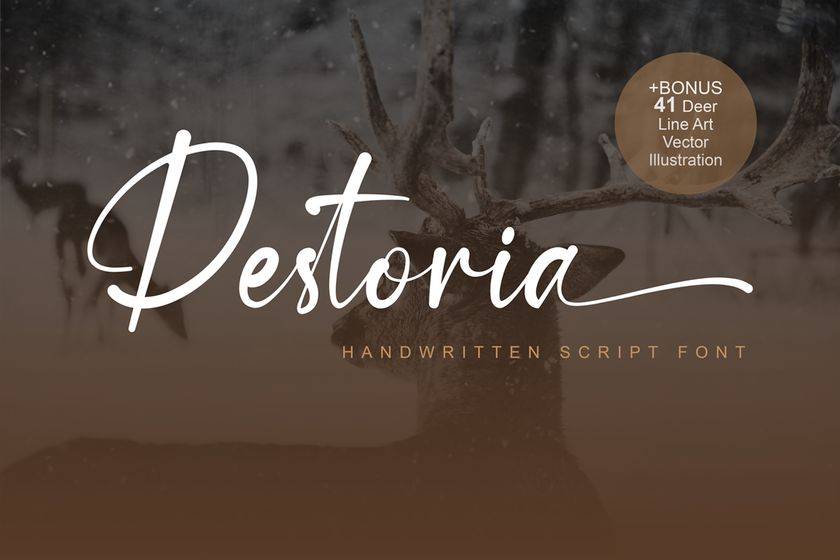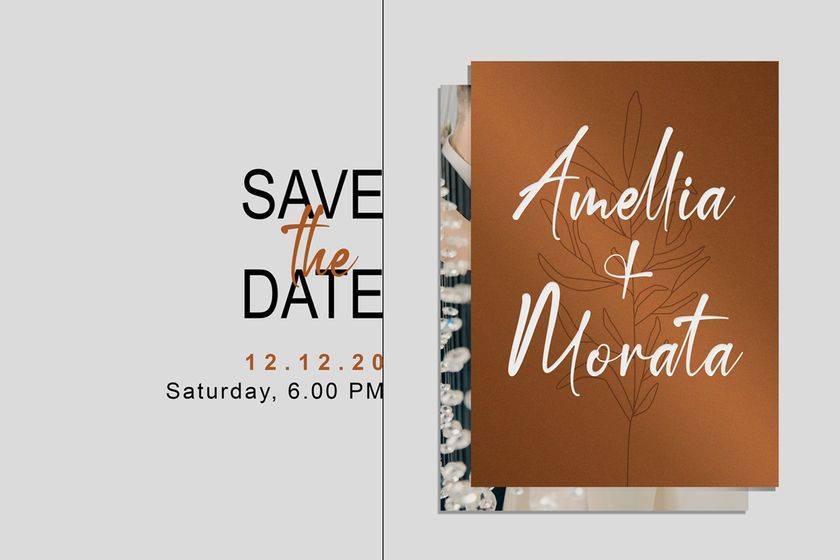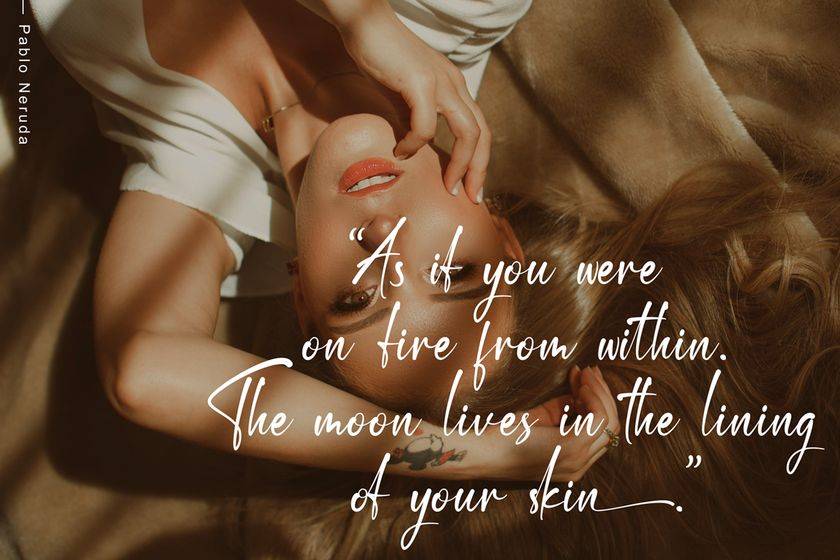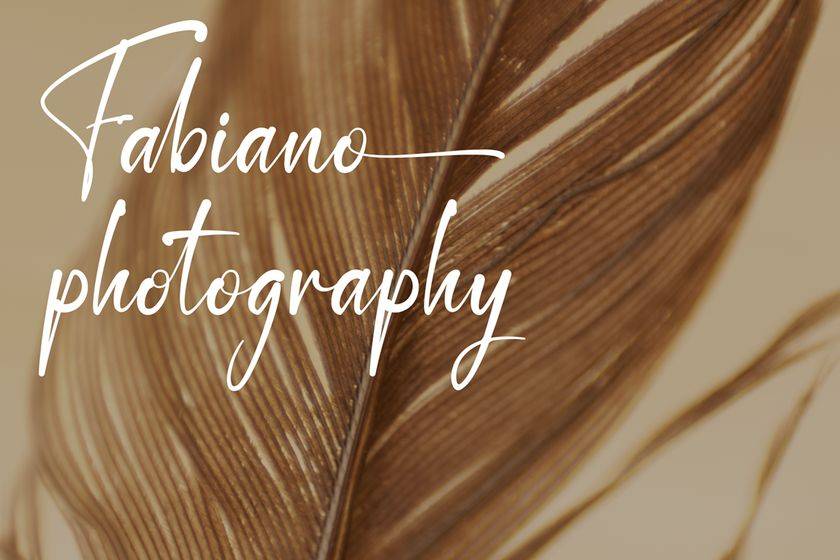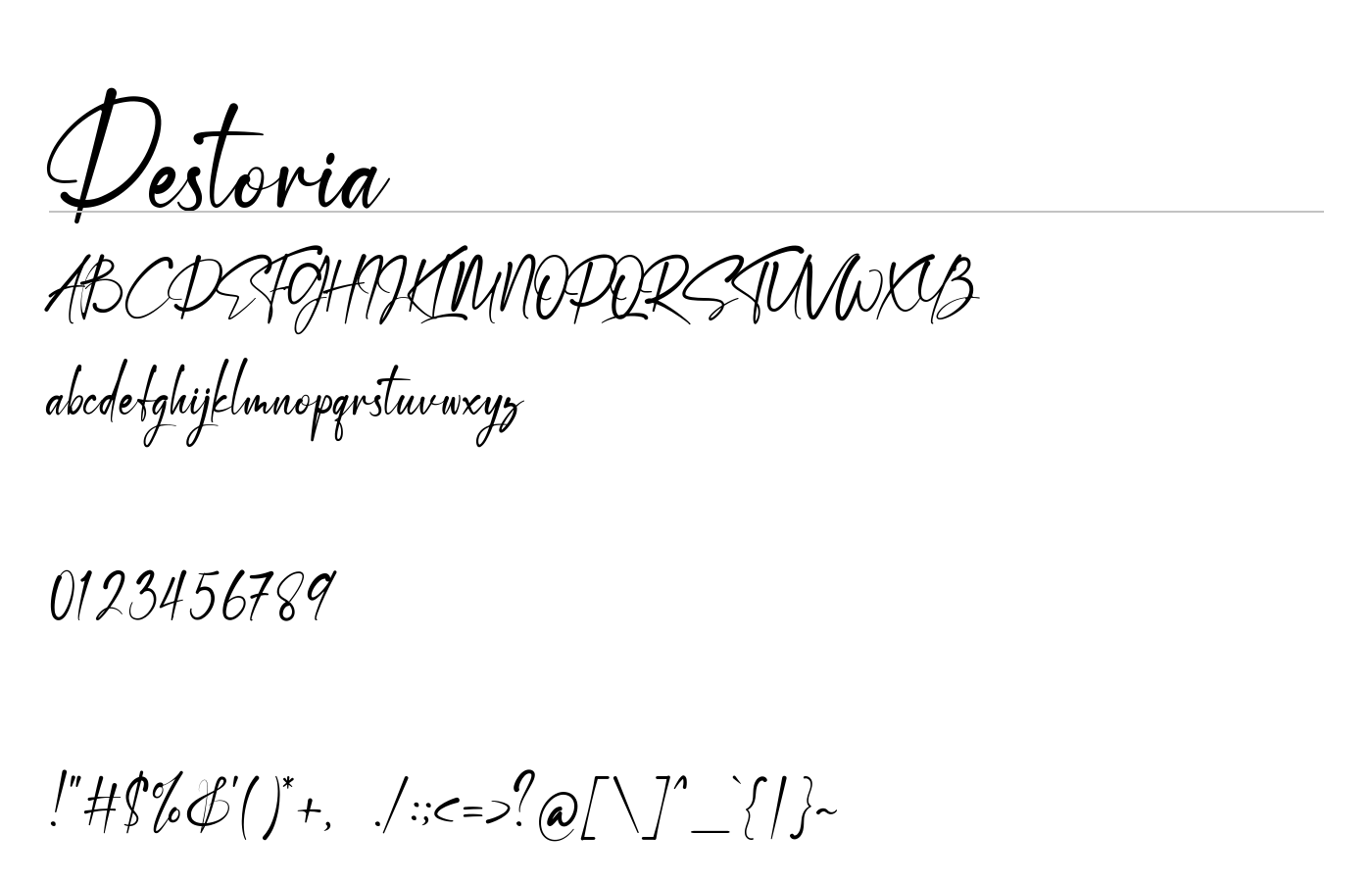
Destoria is an elegant, handwritten script font that features a light weight and a flowing, casual style with natural, slightly elongated letterforms. It combines a playful yet sophisticated personality, making it perfect for personal branding, invitations, or creative projects where a touch of charm and authenticity is desired. Its airy spacing and unique character details ensure it stands out in logos and headlines while maintaining readability.
Destoria Font
About Destoria Font
| Font family | Destoria Font |
| Designer | lemonthe.Dwi Ahidian |